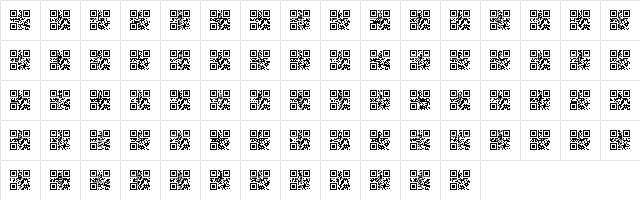
QR font tfb Regular
| Designer | kaiser zhar khan |
QR font tfb is a composed and adaptable typeface that performs quietly and consistently across a wide range of design contexts.